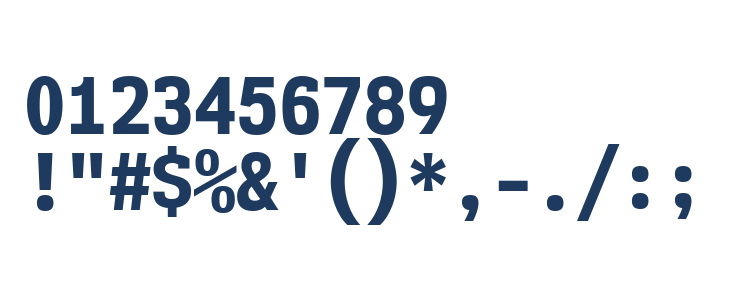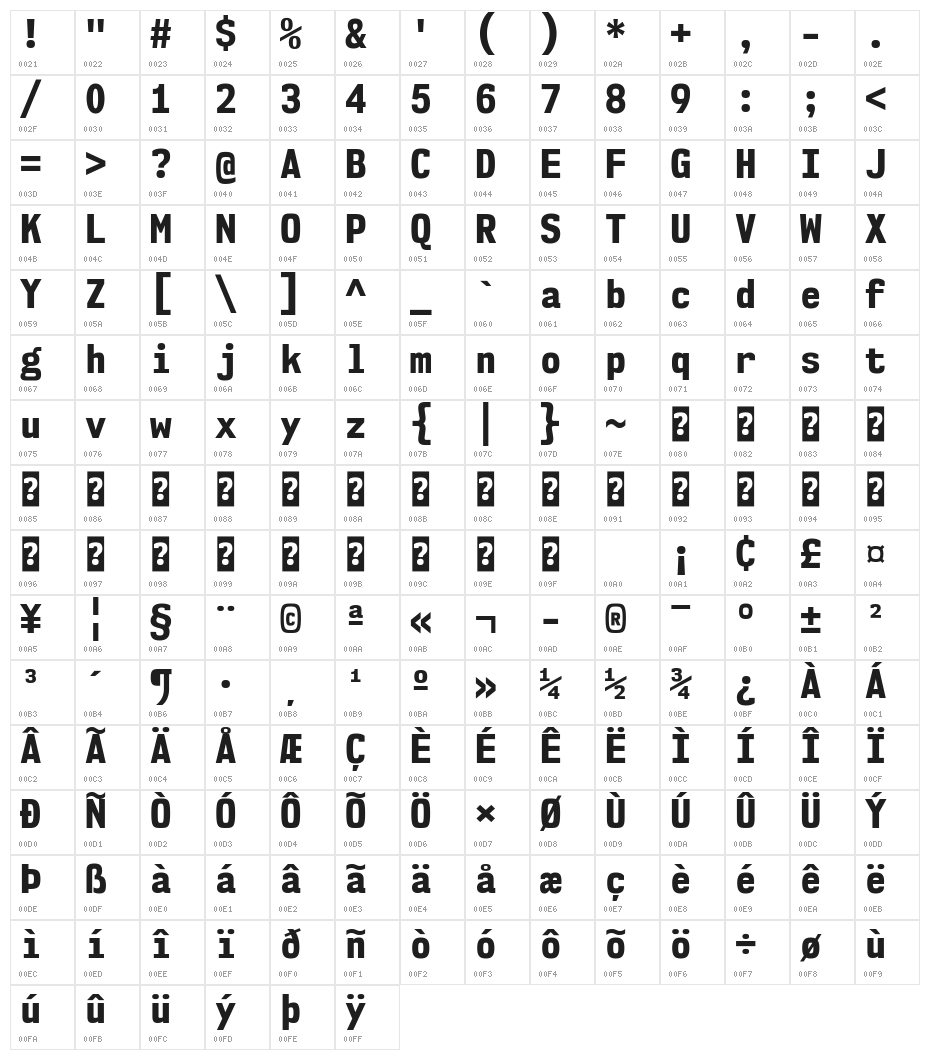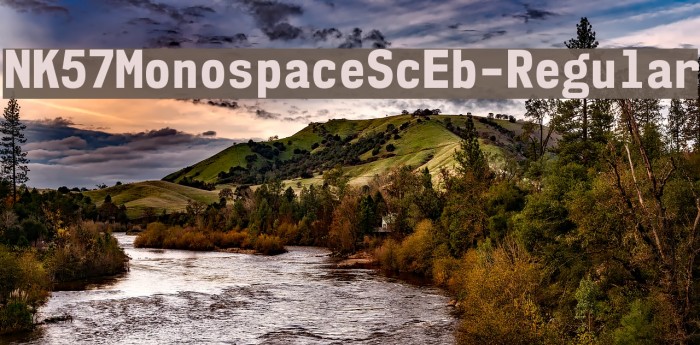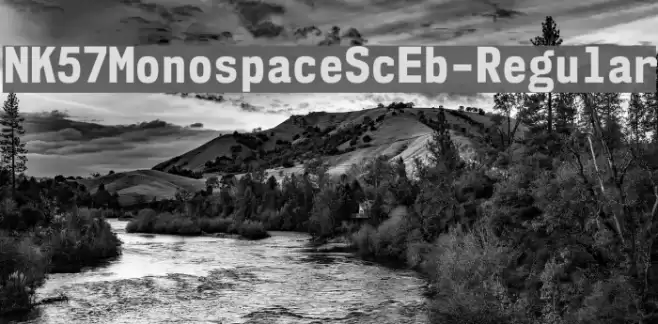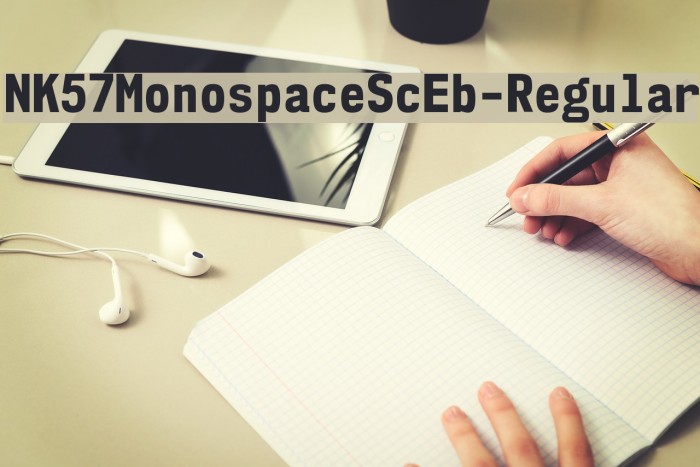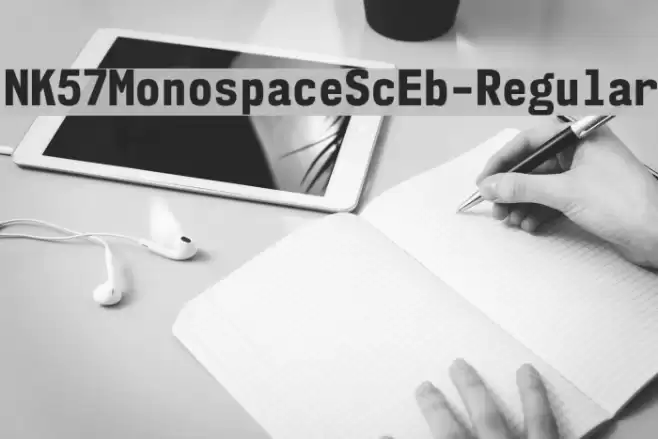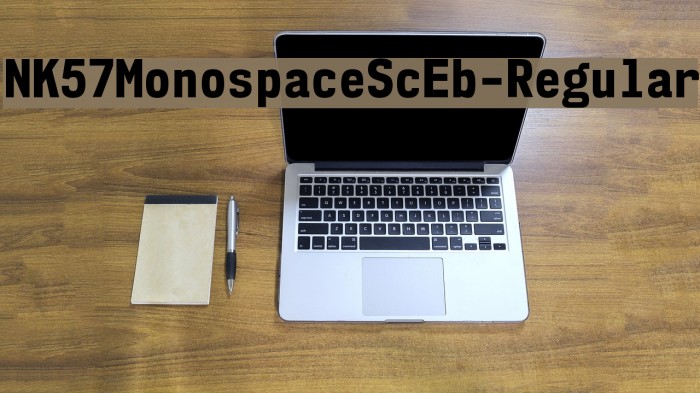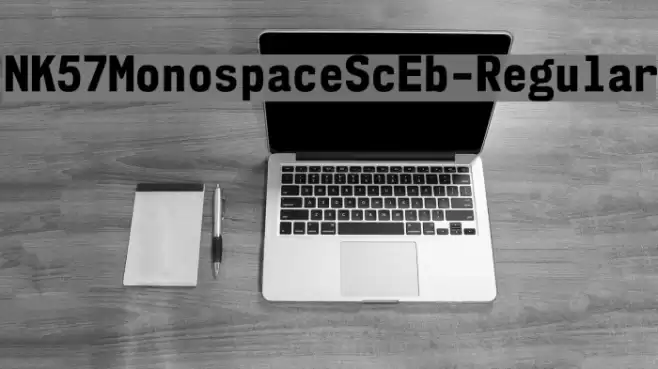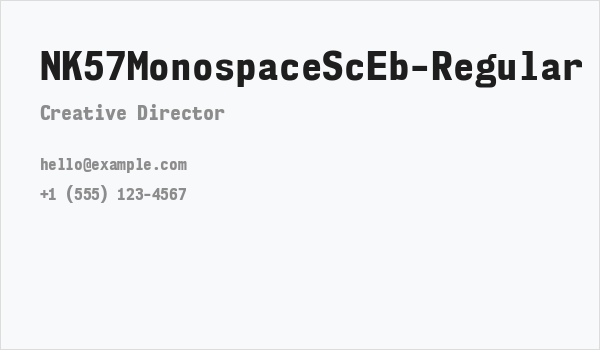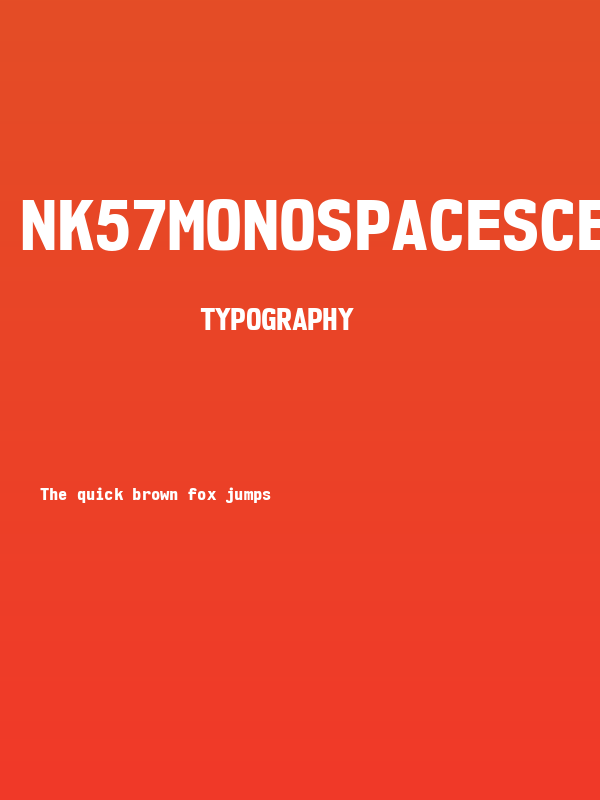
NK57MonospaceScEb-Regular Font
NK57MonospaceScEb-Regular Description
This font features a bold and robust design, characterized by its monospaced structure. Each character occupies the same amount of horizontal space, providing a uniform and orderly appearance. The strokes are thick and consistent, contributing to a strong visual impact. The font maintains a modern aesthetic with clean lines and a straightforward style, making it highly legible. It includes a full set of uppercase and lowercase letters, numerals, and a variety of special characters. The boldness of the font ensures that it stands out, making it suitable for attention-grabbing applications.
| Use Case | Headlines, Coding, Technical documentation |
| Proposed Projects | Ideal for coding environments, technical documentation, and design projects requiring a modern, structured look. |